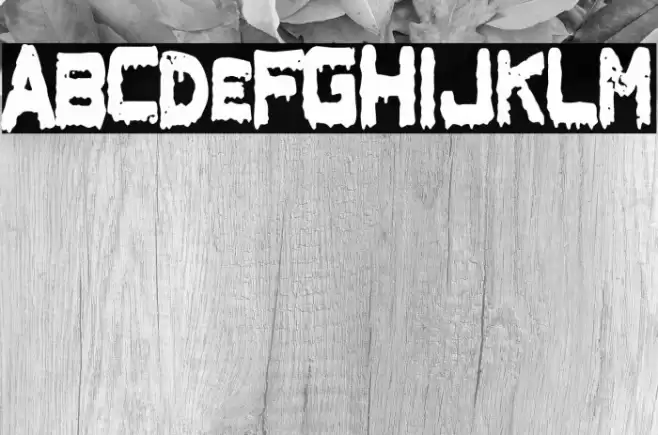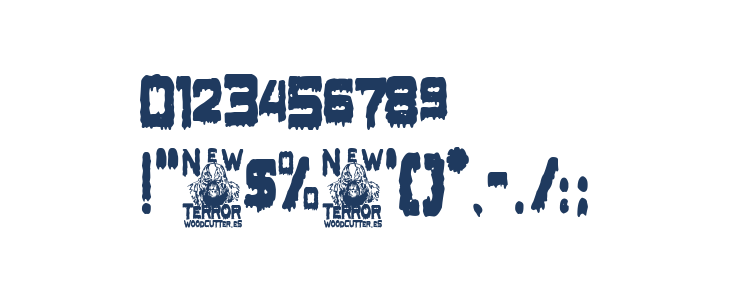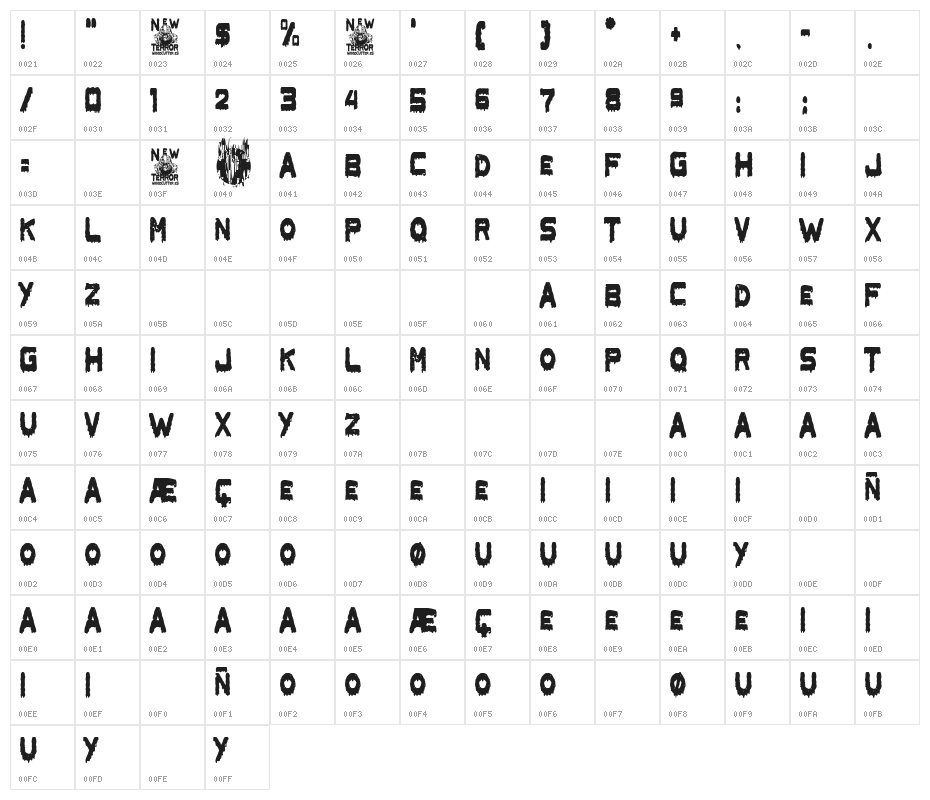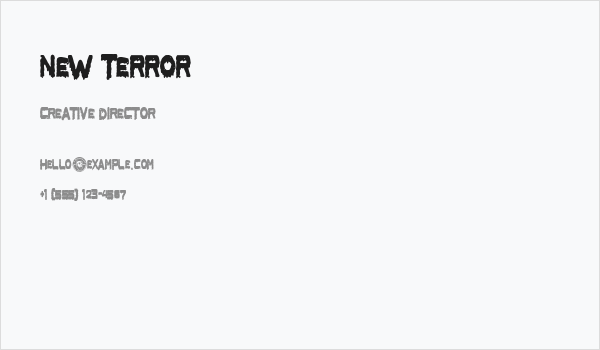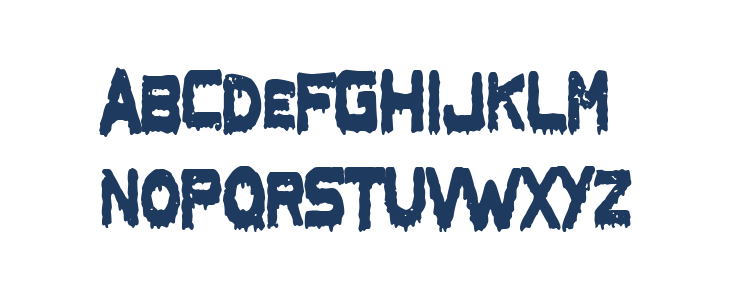
New Terror Font
New Terror Description
This font features a bold, distressed style with a horror-themed aesthetic. The characters appear as if they are dripping or melting, creating a sense of unease and tension. The uppercase and lowercase letters maintain a consistent, jagged edge that enhances the eerie feel. Numbers and special characters follow the same unsettling design, making the font cohesive across all elements. The overall appearance is striking and attention-grabbing, perfect for projects that require a dramatic and spooky touch.
A bold, distressed font with a horror-themed, dripping effect from Uncategorized fonts.
- Font: New Terror
- Proposed Projects: Ideal for Halloween posters, horror movie titles, haunted house flyers, and spooky event invitations.